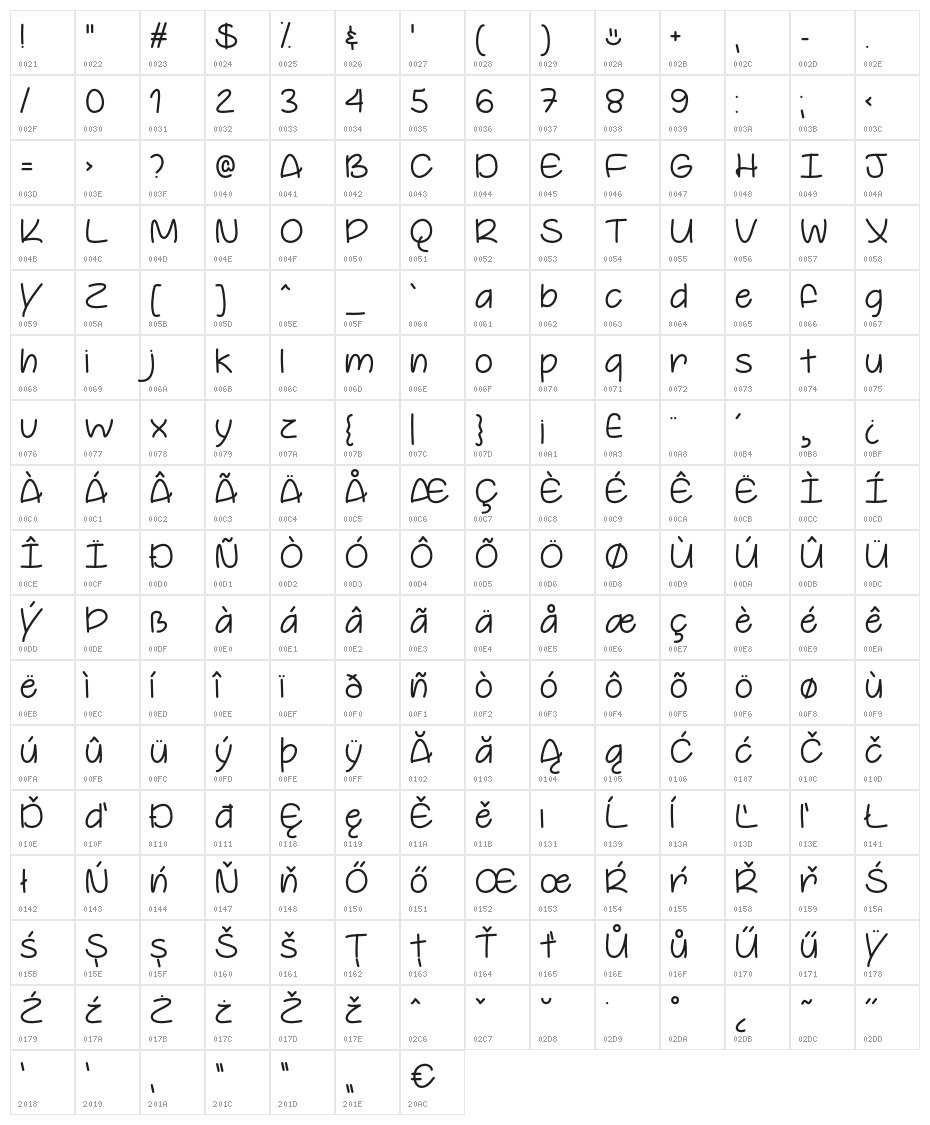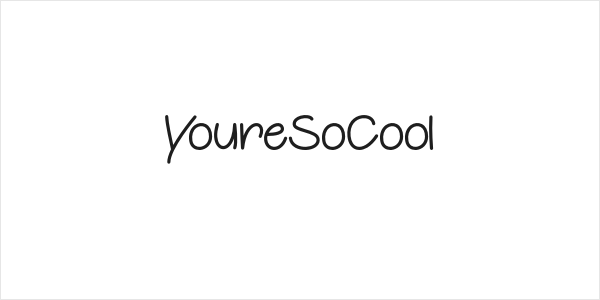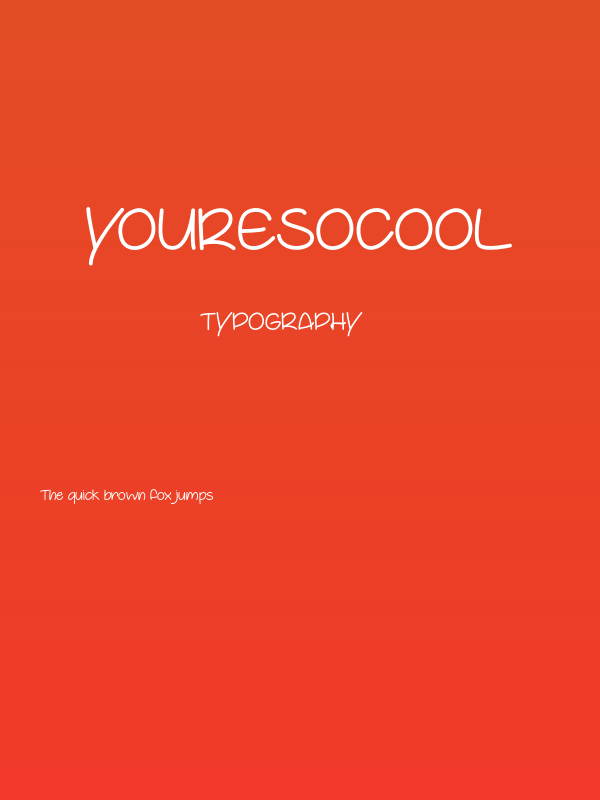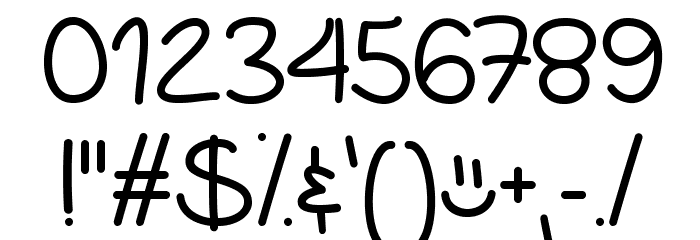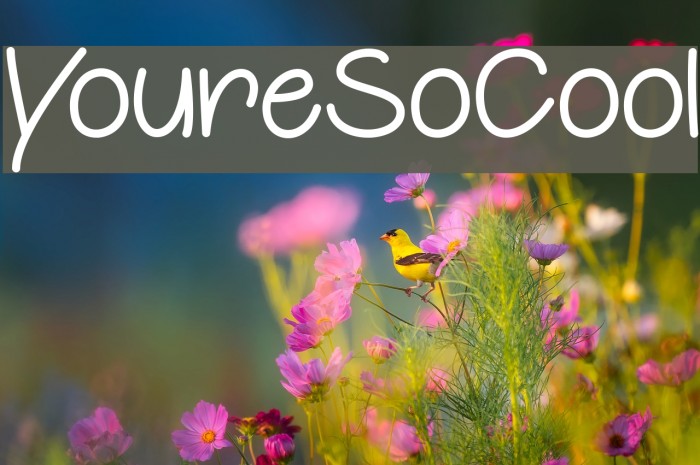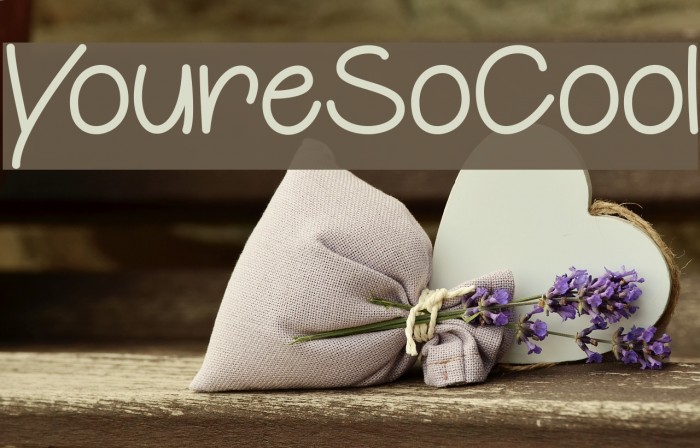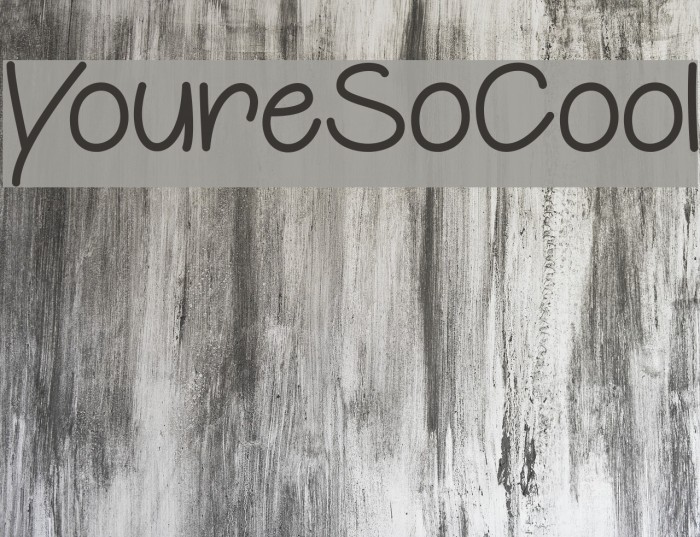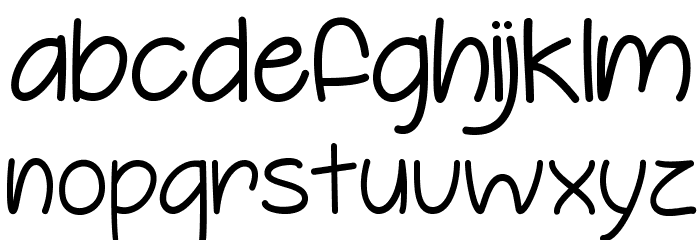
YoureSoCool Font
YoureSoCool Description
This playful and whimsical font features a handwritten style with smooth, rounded edges and a casual, friendly appearance. The characters are slightly irregular, adding to the charm and personality of the font. It maintains a consistent stroke width throughout, giving it a clean and approachable look. The font includes both uppercase and lowercase letters, numerals, and a variety of special characters, making it versatile for various design needs. Its informal style is perfect for projects that require a personal touch or a fun, lighthearted vibe.
| Proposed Projects | Ideal for greeting cards, children's books, playful branding, and social media graphics. |